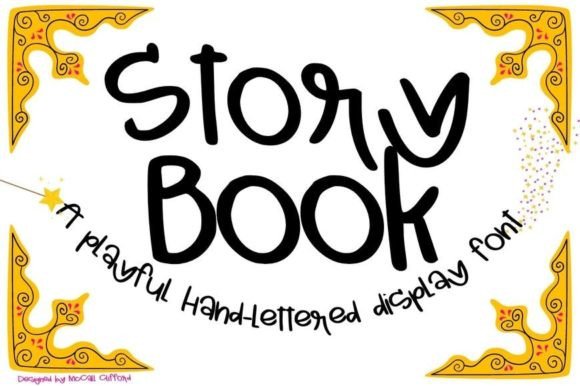
The Story Book Font family is a handwritten font that is both fun and playful. With its whimsical flair, this font is suitable for a wide pool of crafty ideas. Whether you are crafting a magical memoir, a captivating journal, or a captivating invitation, the Story Book Font is a must-have.
This font is not just limited to the crafting world. Due to its readability, the Story Book Font is also perfect for digital screens. This allows you to share your captivating prose via social media posts, blogs, and email newsletters.
So, are you ready to allow your imagination to soar? Unleash your creativity with the Story Book Font today!
**Here are just a few of the many ways you can use the Story Book Font:**
* Create custom T-shirts, mugs, and other merchandise
* Design invitations for parties, weddings, and other special events
* Craft social media posts that stand out
* Create one-of-a-kind logos and branding materials
* Write blog posts and articles that are easy to read and visually appealing
**The Story Book Font is the perfect way to add a touch of whimsy and creativity to your next project.**